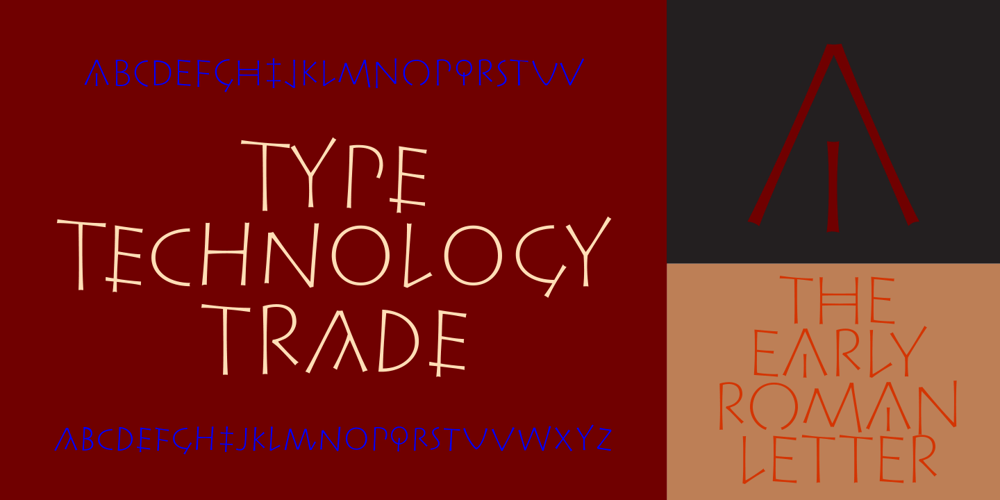
Nvma Titling
Nvma Titling font
Nvma Titling Font Family was designed by Sumner Stone and published by Stone Type Foundry. Nvma Titling contains 1 styles and family package options. Nvma is based on Roman letterforms which appeared during the period from the earliest extant examples in the sixth or seventh century BC until the end of the third century BC. For Nvma the J, U and W had to be fantasies as they did not exist until much later, similar to the G, numerals and other non-alphabetic signs in the font. Thus not all of the archaic forms are represented in Nvma. Nvma was designed to work with Magma, as it matches the weights and heights for Magma Thin and Magma Titling Thin.